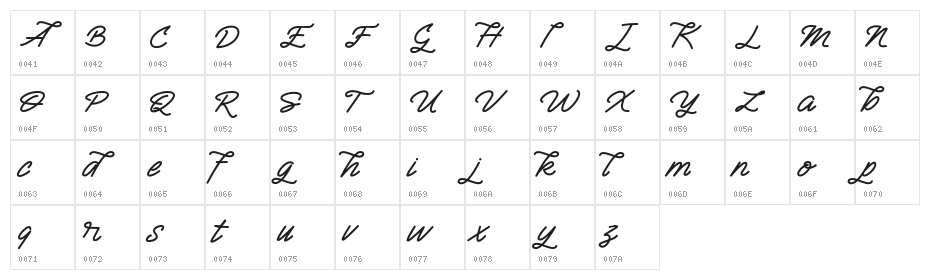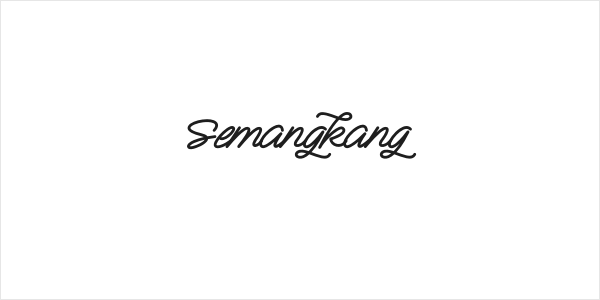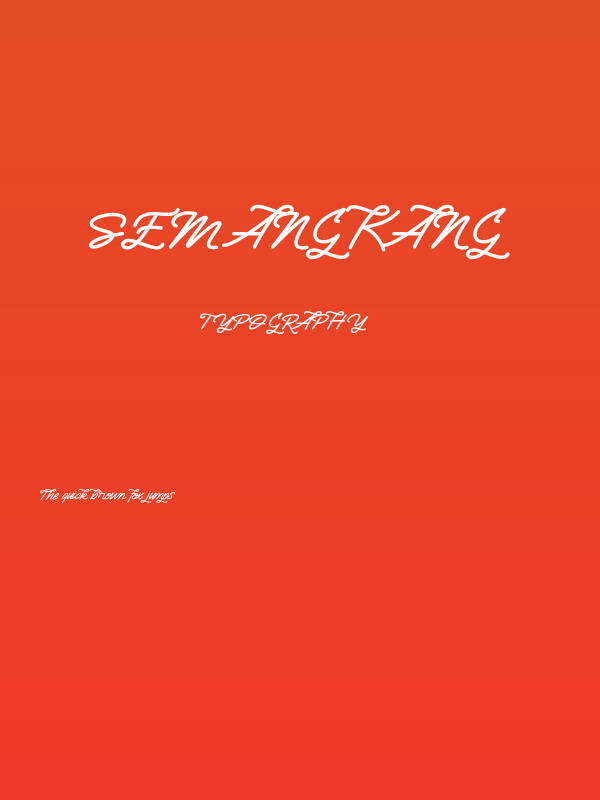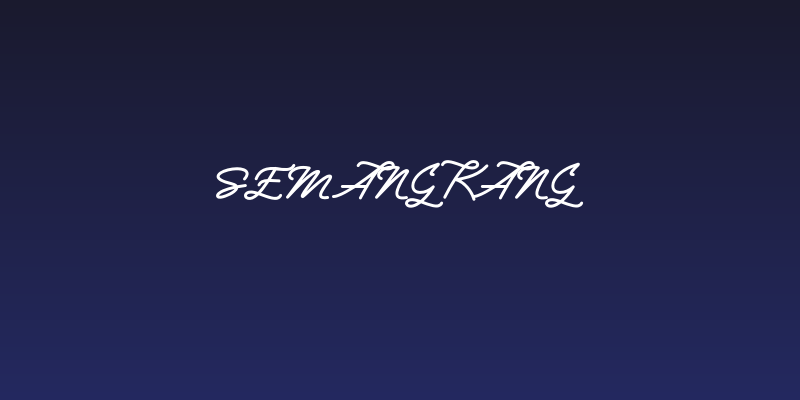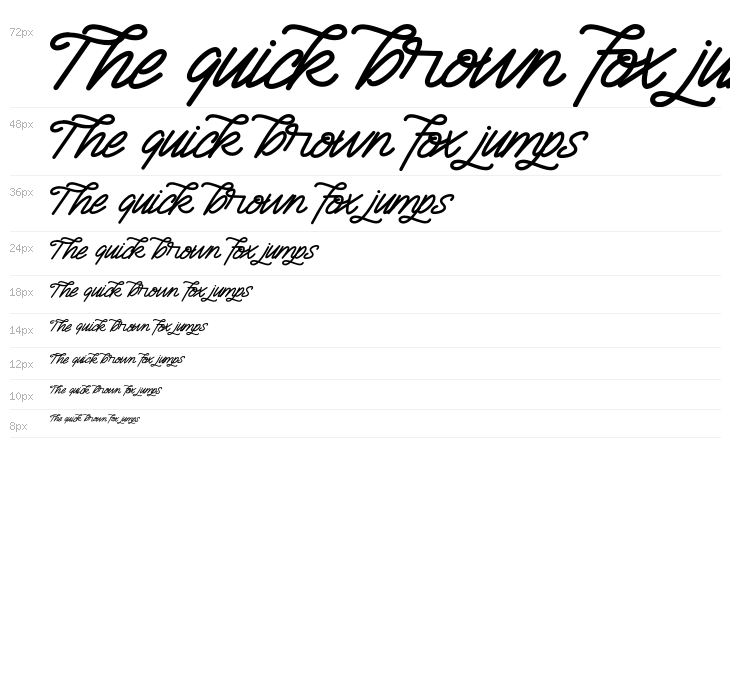
Semangkang Font
Semangkang Description
This font exudes a classic and elegant script style, characterized by its flowing and interconnected letterforms. The uppercase letters are ornate with sweeping curves and loops, while the lowercase letters maintain a consistent fluidity, enhancing the script's overall cohesiveness. The strokes are moderately thick, providing a medium contrast that adds to its readability and visual appeal. The font's design is reminiscent of traditional calligraphy, making it suitable for formal and decorative purposes.
| Proposed Projects | Ideal for wedding invitations, elegant branding, greeting cards, and decorative headlines. |